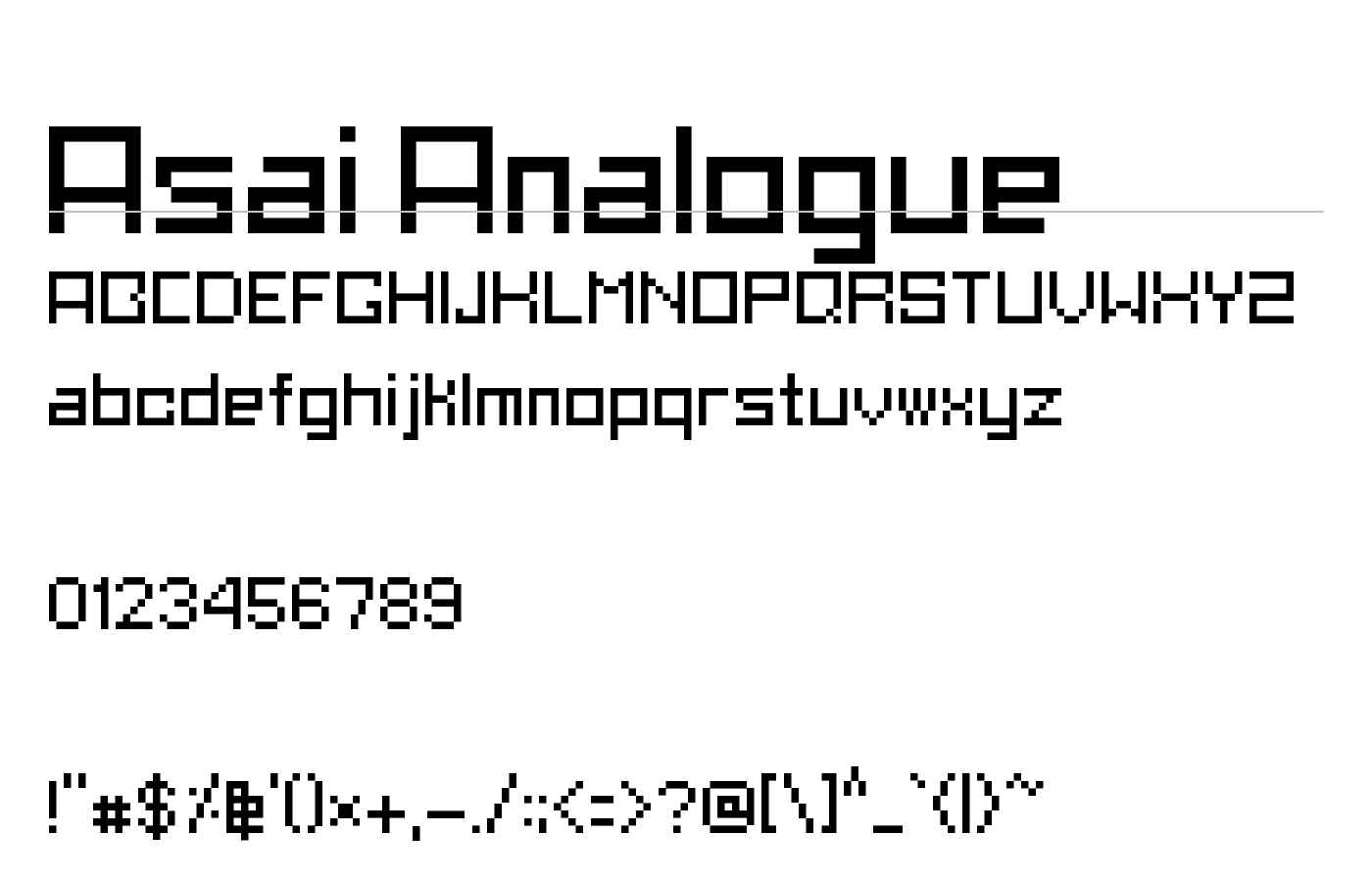
Asai Analogue is a unique, geometric sans serif font with a pixelated, digital look that evokes a retro-futuristic style. It features monospaced, sharp-edged characters with consistent stroke weight and a narrow width, making it perfect for tech-inspired designs or digital interfaces. This font works well in logos, headlines, and projects seeking a modern yet nostalgic tech vibe.
Asai Analogue Font
About Asai Analogue Font